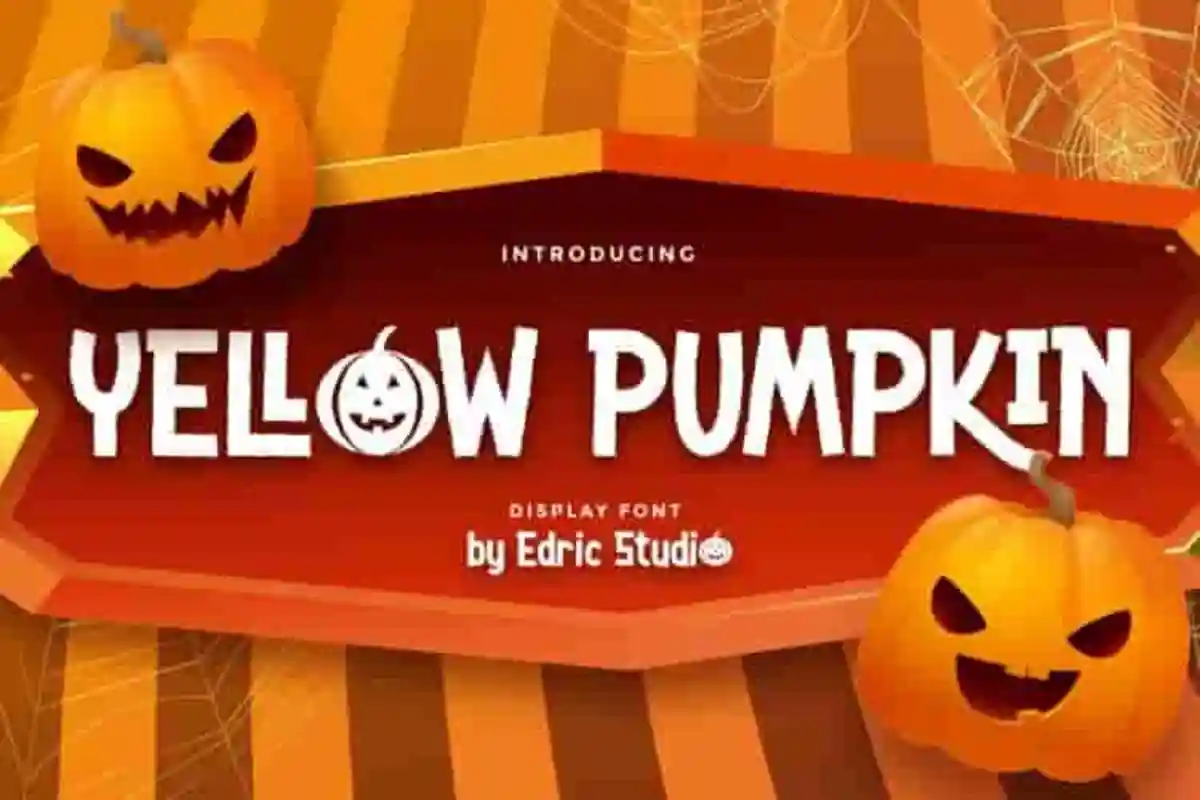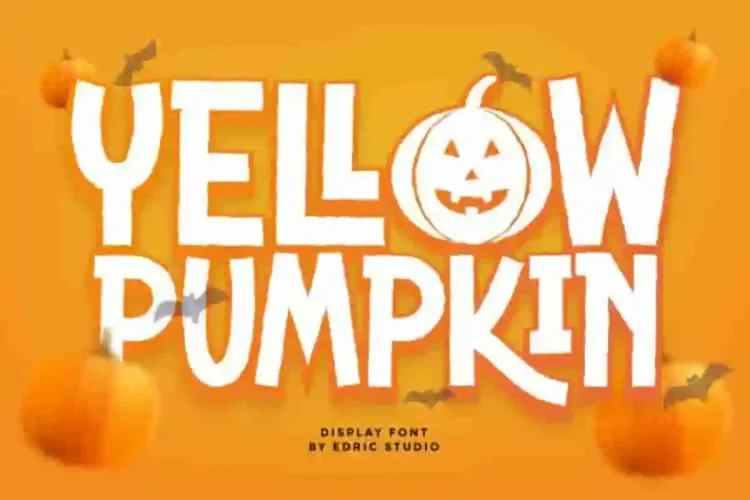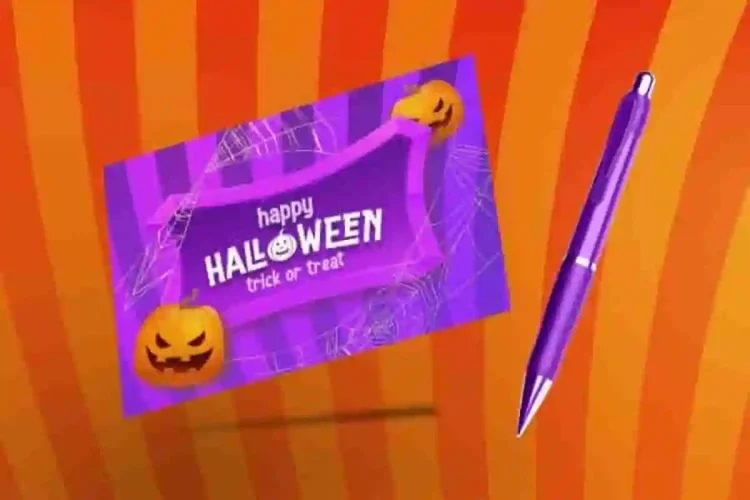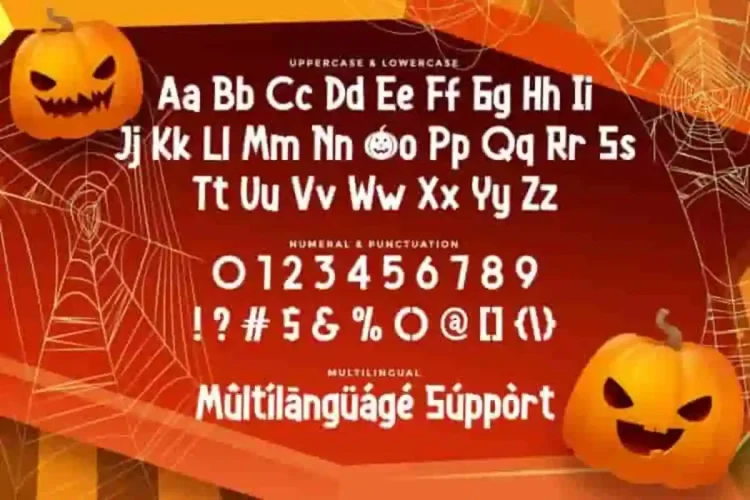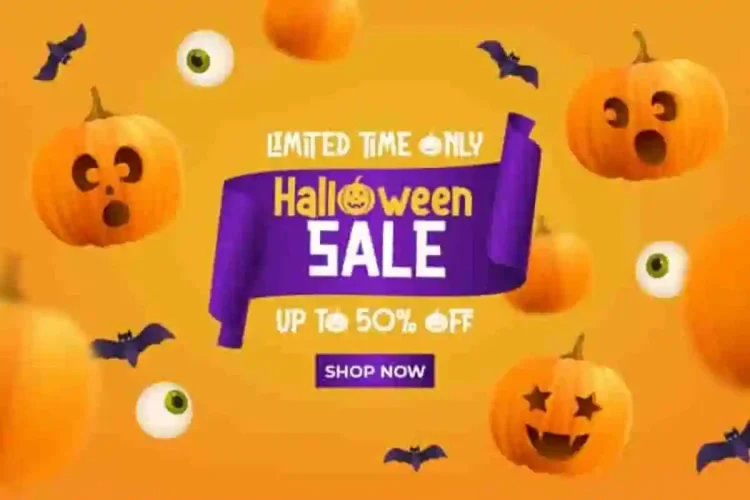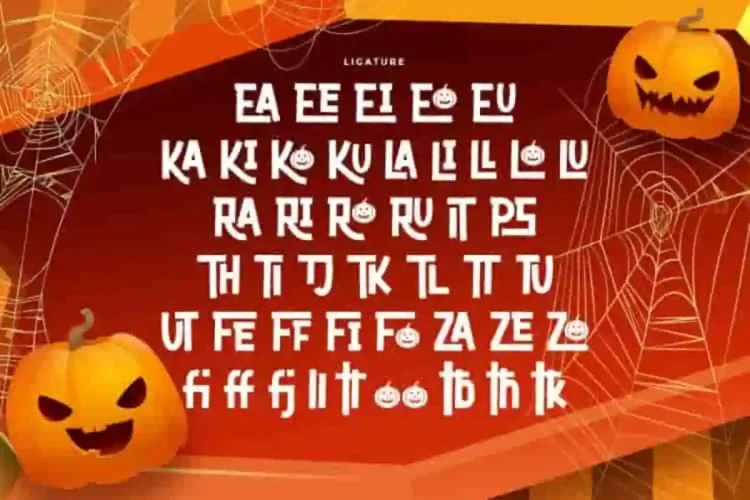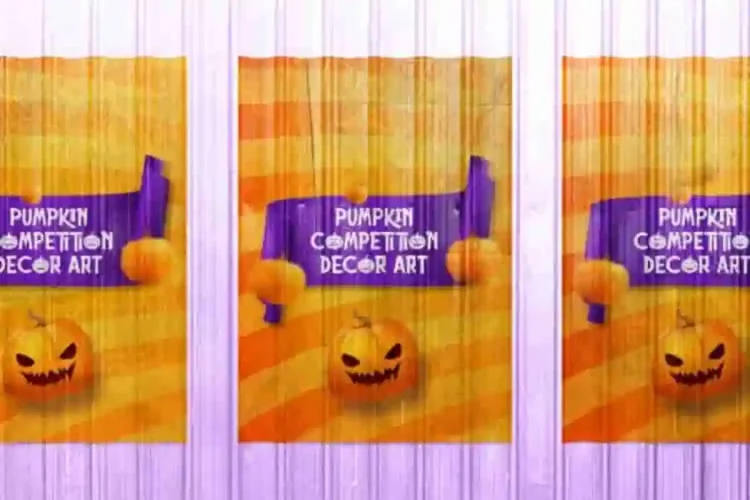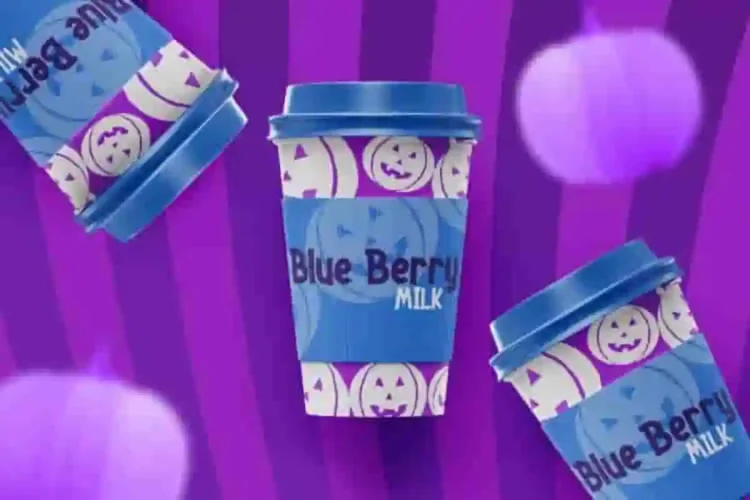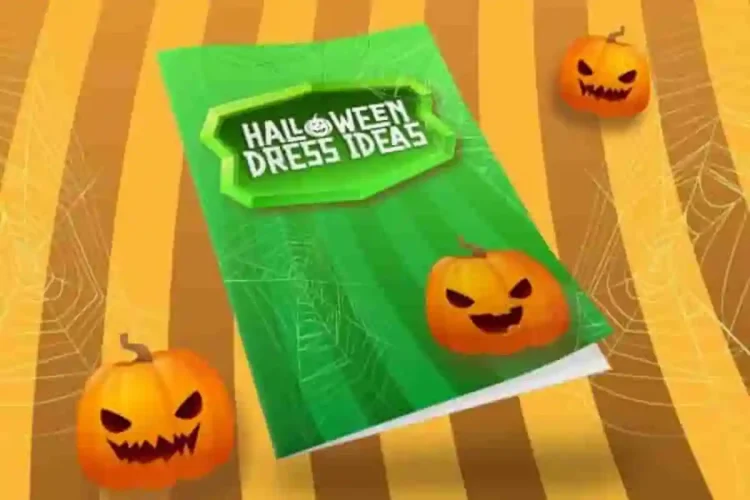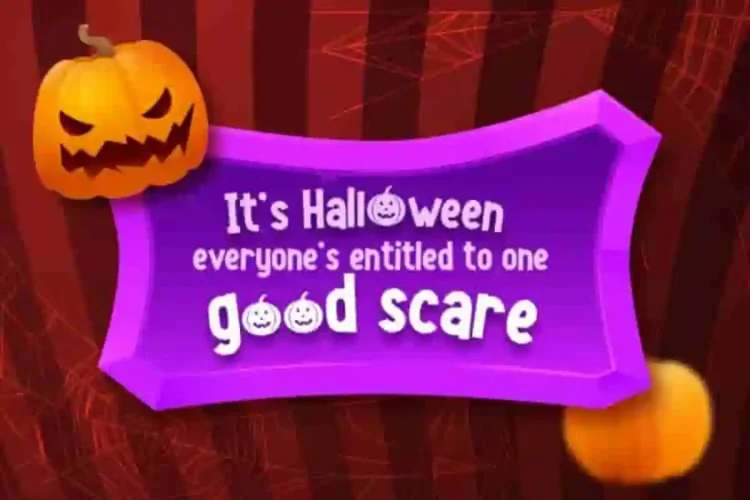
Yellow Pumpkin Display Font
Yellow Pumpkin Display Font is a unique display font with halloween feel. This is a different look. Unites the basic sans serif style with unique shapes and creepy brush effects, inspired by halloween sundries. Will be perfect for branding, logo, products packaging, signage, stationery, title etc. Its playful yet eerie style makes it perfect for projects that need a bold seasonal vibe.